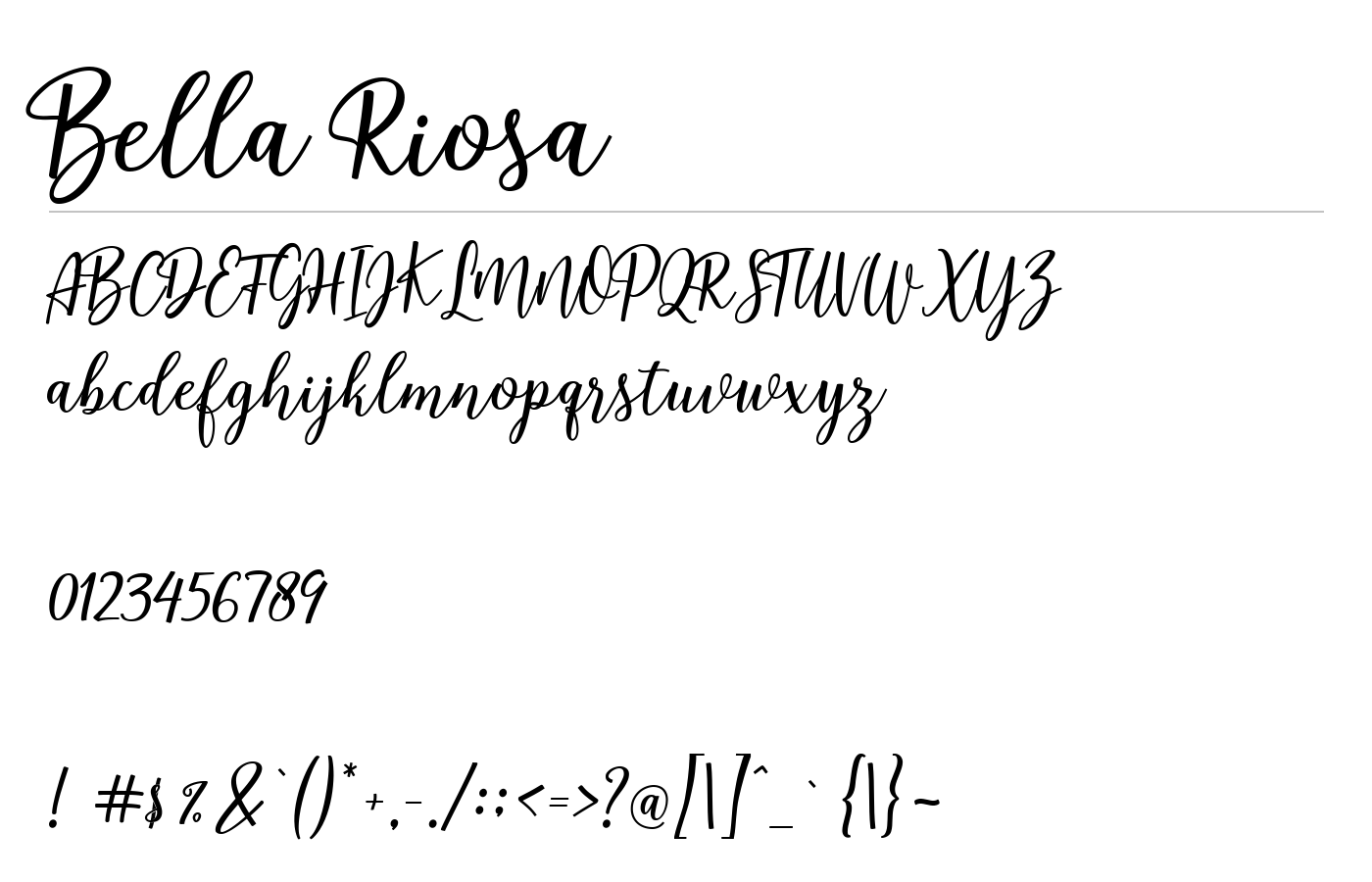
Bella Riosa is an elegant and flowing script font with a handwritten feel, characterized by its smooth, connected strokes and tasteful contrast between thick and thin lines. Its slender, slightly condensed letterforms and delicate curves create a graceful and sophisticated appearance, making it ideal for wedding invitations, branding, and stylish editorial designs where a personal and refined touch is desired. This font works best in headline and display uses where its expressive nature can shine.
Bella Riosa Font
About Bella Riosa Font